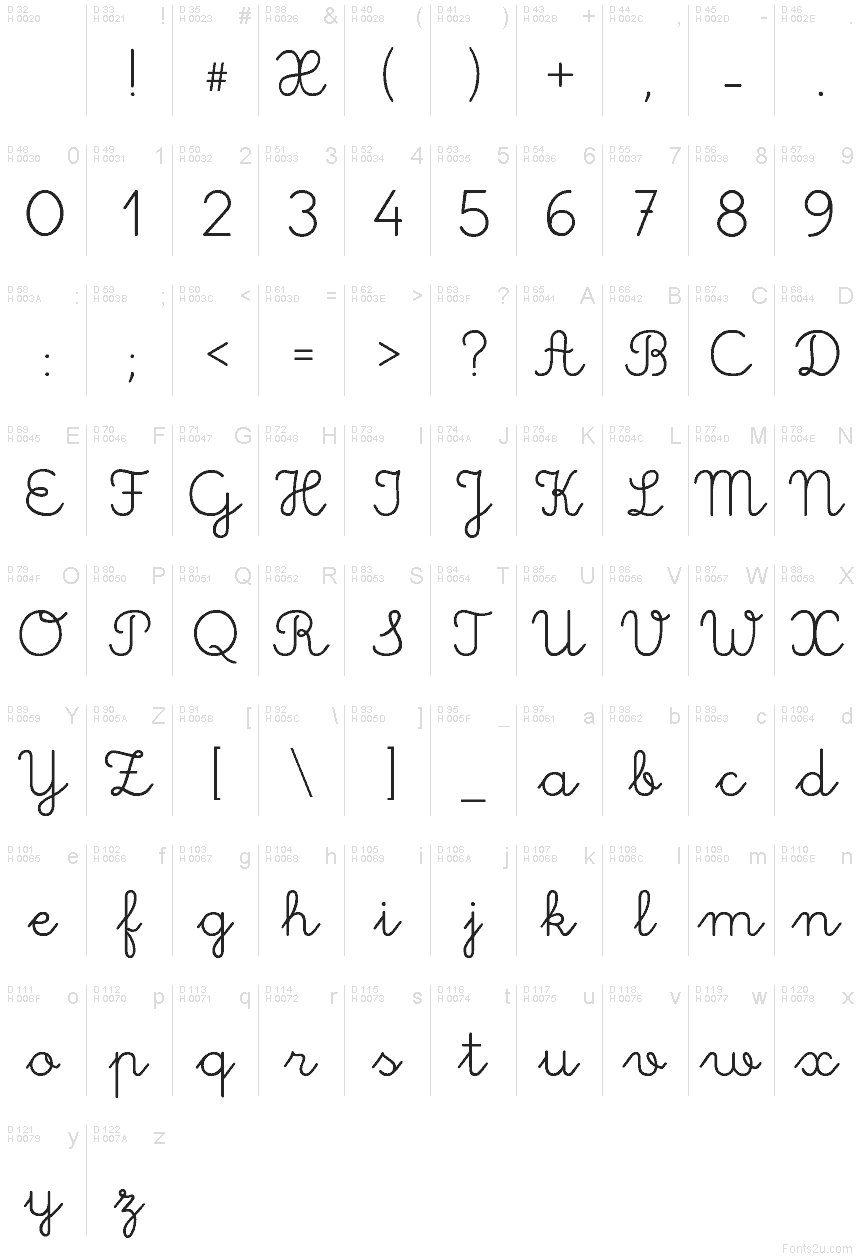
EscolarBrasil
Escolar Brasil font by Rosnalda Oliveira is a free school script typeface. It solves a familiar classroom challenge: handwriting that looks authentic yet stays beautifully readable. The letters connect with an easy, even rhythm, gentle slant, and smooth monoline strokes—no scratchy edges, no awkward joins. It feels like tidy notebook cursive, so learners can trace, teachers can demonstrate, and designers get clean, consistent lines.
Using Escolar Brasil, you can build handwriting worksheets, classroom posters, flashcards, name tags, educational apps, and kids’ activity books. The open forms and steady spacing keep words clear at small sizes, while the soft loops add warmth in headlines. For a simple pairing, combine this free font with a plain geometric sans; set the script a touch larger than body text for maximum clarity.